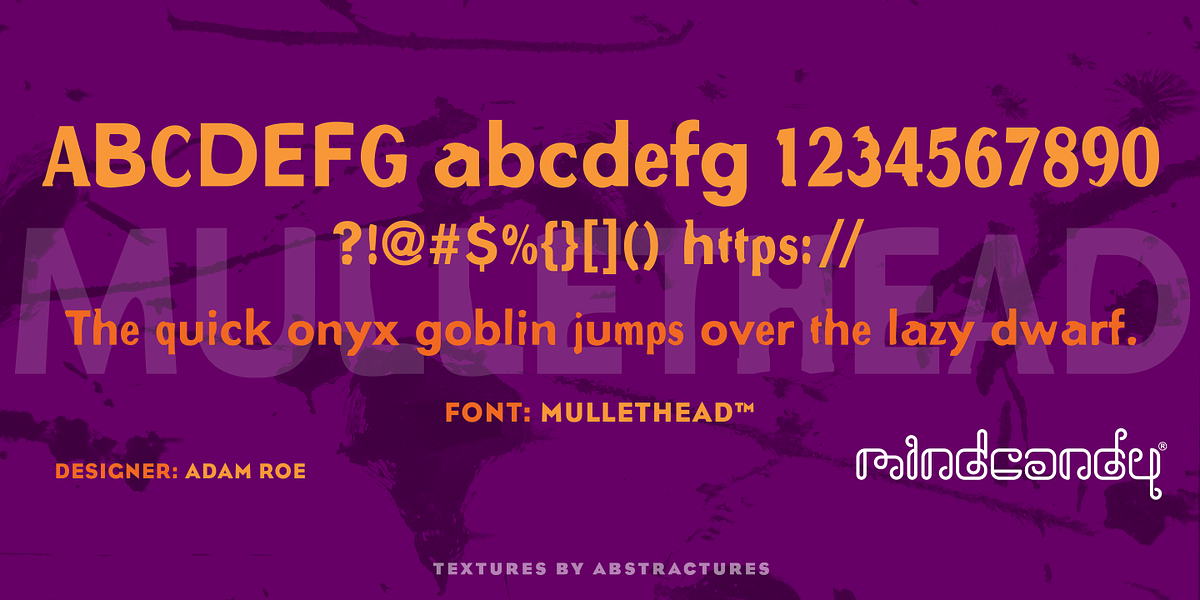
Mullethead™
This font is a modern geometric sans-serif typeface designed by Adam Roe. It's characterized by its clean lines and high contrast between thick and thin strokes, making it ideal for display purposes such as headlines, branding, and website design.